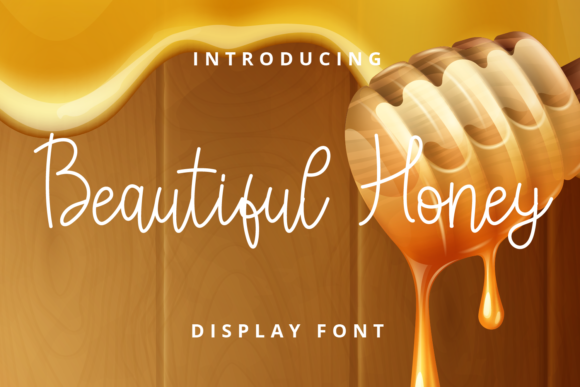
Introducing Beautiful Honey Font, a breathtaking script font that will captivate your audience and leave a lasting impression. Its characters waltz gracefully across the baseline, exuding an air of elegance and sophistication.
Crafted with meticulous care, Beautiful Honey Font is designed to elevate your designs to new heights. Whether you're creating business proposals, marketing materials, or stunning invitations, this font will transform your words into works of art.
But Beautiful Honey Font is more than just an aesthetic delight. It's a powerful marketing tool that can help you connect with your target audience on a deeper level. Its flowing script conveys a sense of warmth and approachability, making your messages more relatable and impactful.
With its remarkable versatility, Beautiful Honey Font can adapt to a wide range of design styles. Use it to create eye-catching headlines that demand attention, or incorporate it into your designs for a touch of whimsy and elegance.
Imagine your customers' eyes lighting up as they encounter your designs adorned with Beautiful Honey Font. The subtle curves and delicate lines will draw them in, inviting them to explore your content further.
Don't let your designs fade into the background. Embrace the power of Beautiful Honey Font and unlock a world of possibilities. Transform your ordinary words into extraordinary statements and make your designs shine brighter than ever before.